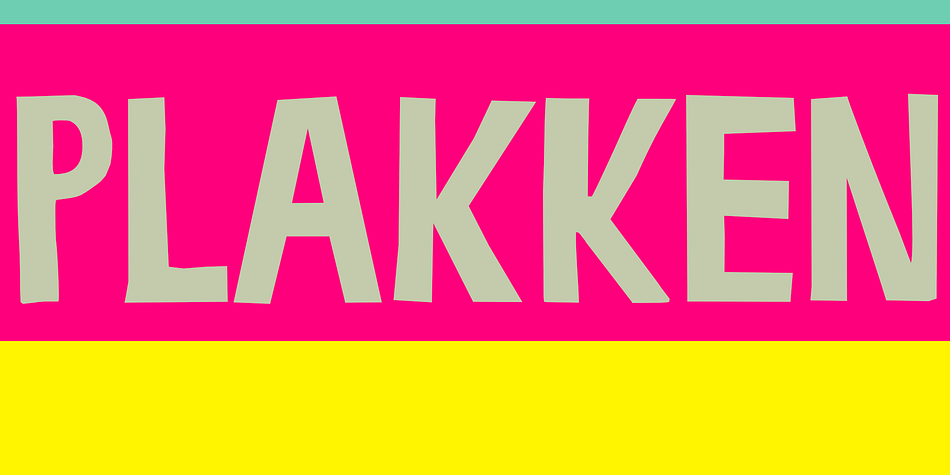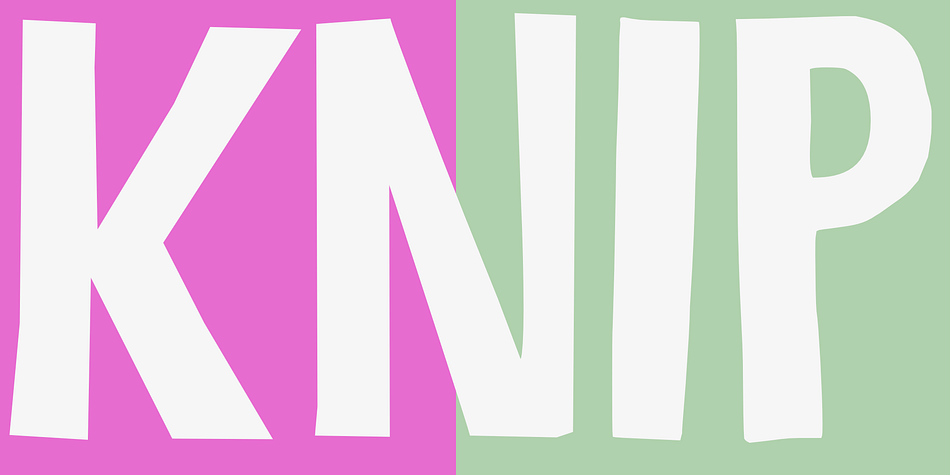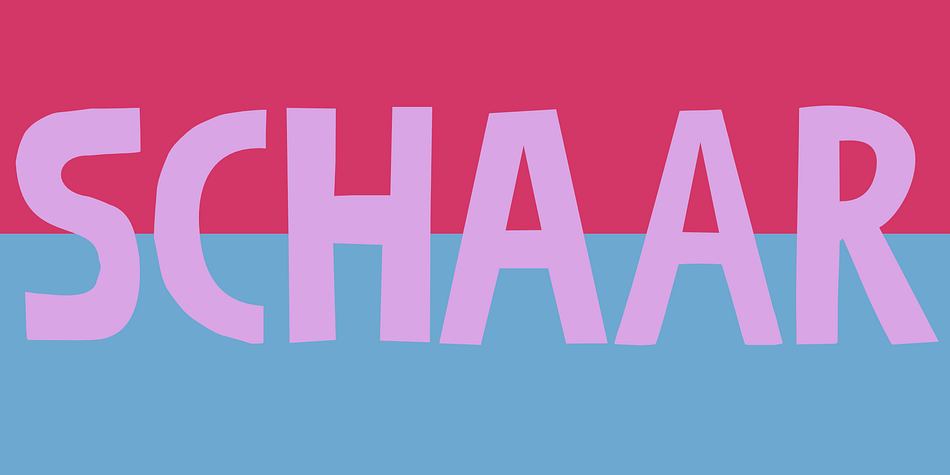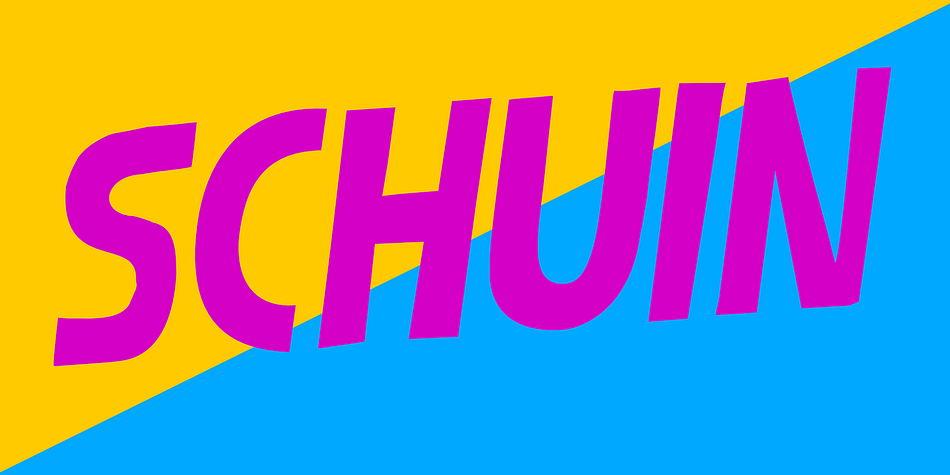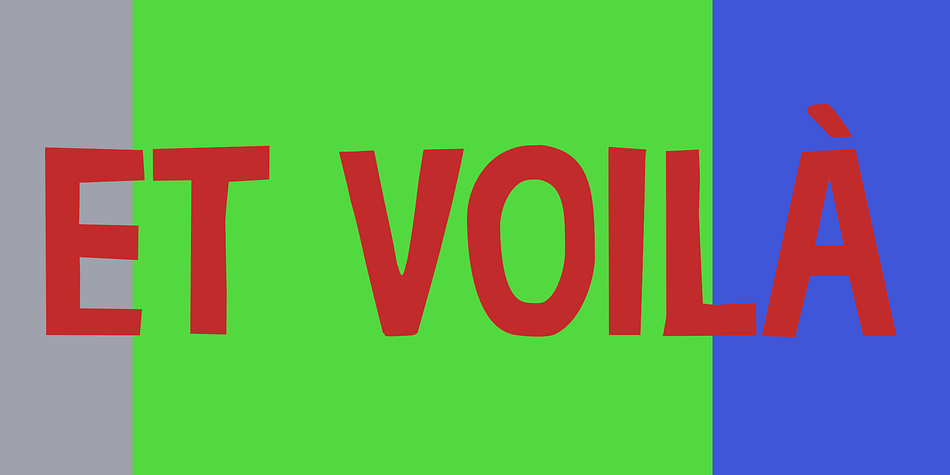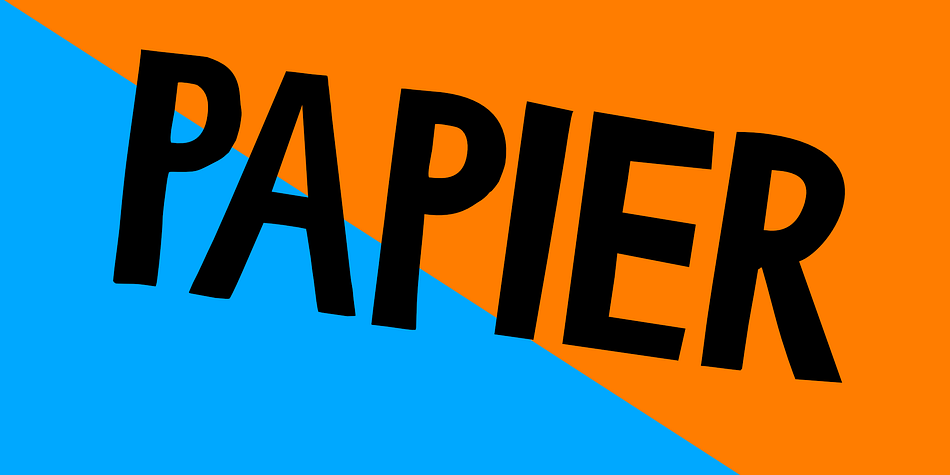
Knip
Designed by David Kerkhoff, Knip is an arts and crafts and display sans font family. This typeface has two styles and was published by Hanoded.
Knip, in Dutch, means ‘cut’. You can tell by the glyphs that I made this font by cutting out the shapes from black paper, gluing it onto white paper and photographing the result so I could digitalise it!
I don’t make too many cut out fonts, as it is a lot of work and it often leads to nothing. Besides that, I depend on the paper supply from my kids and they happened to have black paper this time!